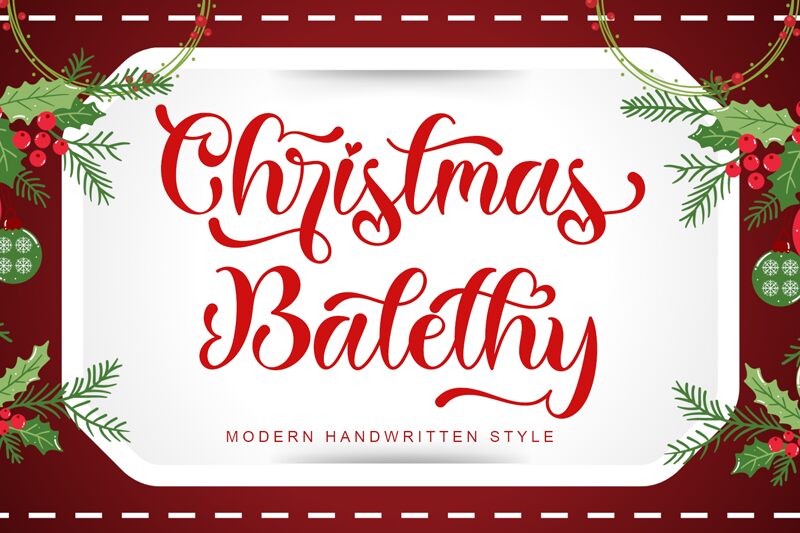
Christmas Balethy font is a free holiday font that combines elegance with a flowing, modern script style. This festive typeface captures a charming and lively spirit, perfect for adding a touch of seasonal cheer to any design. Its decorative and inviting appearance makes it an ideal choice to celebrate the joy and warmth of the holiday season.